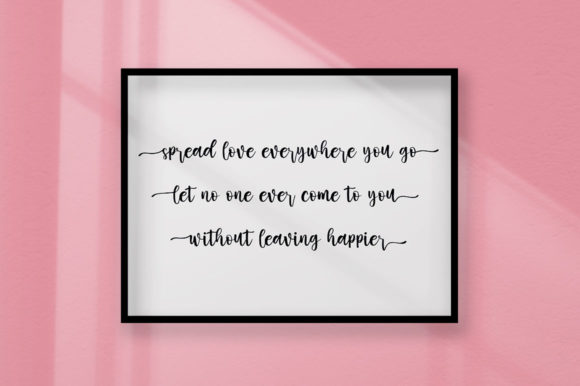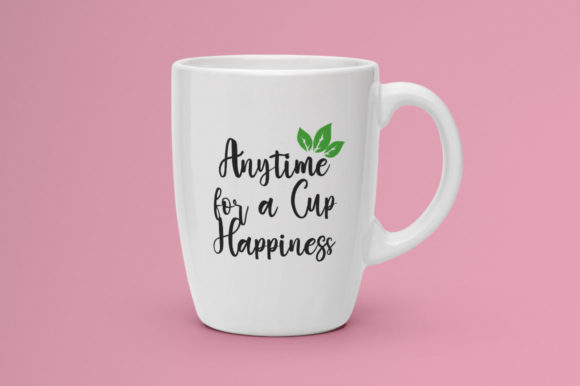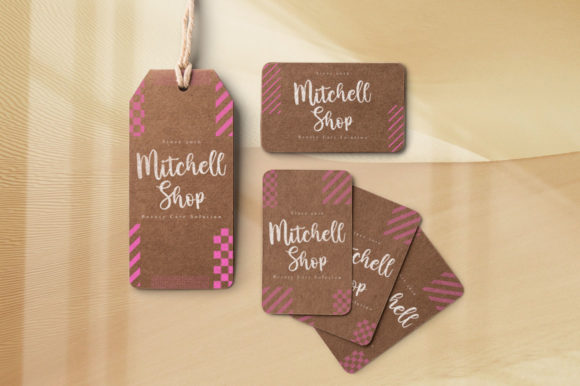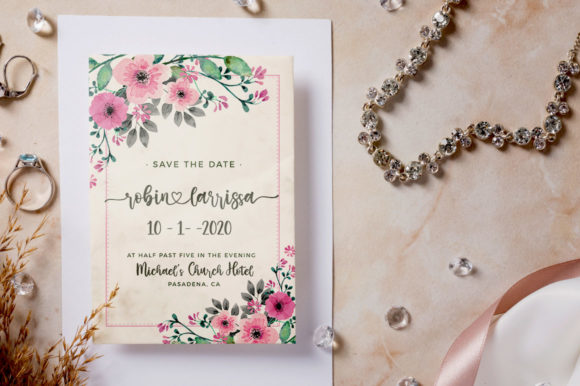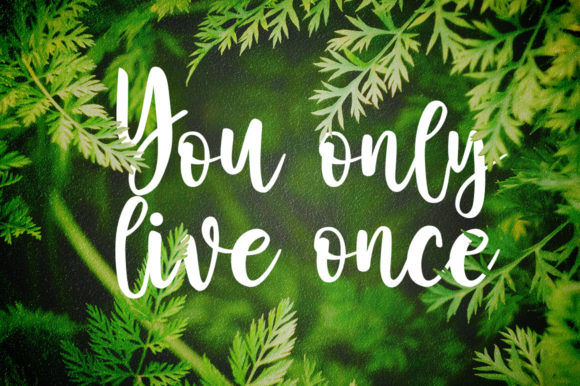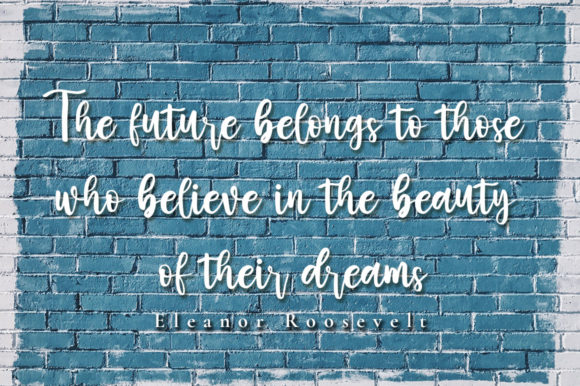
Introducing Casey Martin Font: Elevate Your Designs with Elegance
Are you on the hunt for a font that exudes elegance, sophistication, and a touch of modern flair? Look no further than the Casey Martin font. This beautiful, handwritten typeface is perfect for designers and crafters seeking to add a classy, calligraphic feel to their projects. With its flowing lines, gorgeous glyphs, and stunning alternates, Casey Martin is sure to become your go-to font for a wide range of design applications.
What Makes Casey Martin Font So Special?
Casey Martin font is an elegant and flowing handwritten font that boasts a range of features that set it apart from other typefaces. Here are just a few reasons why designers and crafters are falling in love with this beautiful font:
- PUA Encoding: Casey Martin font is PUA (Private Use Area) encoded, which means you can access all of the glyphs and swashes with ease. This makes it simple to add a touch of elegance and sophistication to your designs.
- Varying Baseline: The font features a varying baseline, which gives it a natural, handwritten feel that’s perfect for creating beautiful, eye-catching designs.
- Smooth Lines: The lines in Casey Martin font are smooth and flowing, creating a sense of movement and fluidity that’s perfect for designs that require a touch of elegance.
- Gorgeous Glyphs: The font includes a range of gorgeous glyphs and stunning alternates, giving you the flexibility to create unique and eye-catching designs.
Classy Calligraphic Influences with a Modern Twist
Casey Martin font maintains its classy calligraphic influences while feeling contemporary and fresh. This makes it perfect for designers and crafters who want to add a touch of sophistication to their designs without sacrificing modernity. Whether you’re creating wedding invitations, branding materials, or social media graphics, Casey Martin font is the perfect choice.
Casey Martin font is perfect for designers and crafters who want to elevate their designs to the highest level. With its elegant, flowing lines and gorgeous glyphs, this font is sure to become a staple in your design toolkit. Here are just a few ways you can use Casey Martin font:
- Wedding Invitations: Create beautiful, eye-catching wedding invitations that set the tone for a elegant and sophisticated wedding.
- Branding Materials: Use Casey Martin font to create stunning branding materials, such as logos, business cards, and letterheads.
- Social Media Graphics: Add a touch of elegance to your social media graphics, such as Facebook posts, Instagram stories, and Twitter headers.
- Digital Art: Use Casey Martin font to create stunning digital art, such as typographic quotes, posters, and prints.
In conclusion, Casey Martin font is a beautiful, elegant, and flowing handwritten font that’s perfect for designers and crafters seeking to add a touch of sophistication to their designs. With its PUA encoding, varying baseline, smooth lines, gorgeous glyphs, and stunning alternates, this font is sure to become your go-to typeface for a wide range of design applications. So why wait? Fall in love with Casey Martin font and bring your projects to the highest level!
- Elegant and flowing handwritten font
- Varying baseline for a natural, handwritten feel
- Smooth lines and gorgeous glyphs
- Stunning alternates for added flexibility
- Classy calligraphic influences with a modern twist